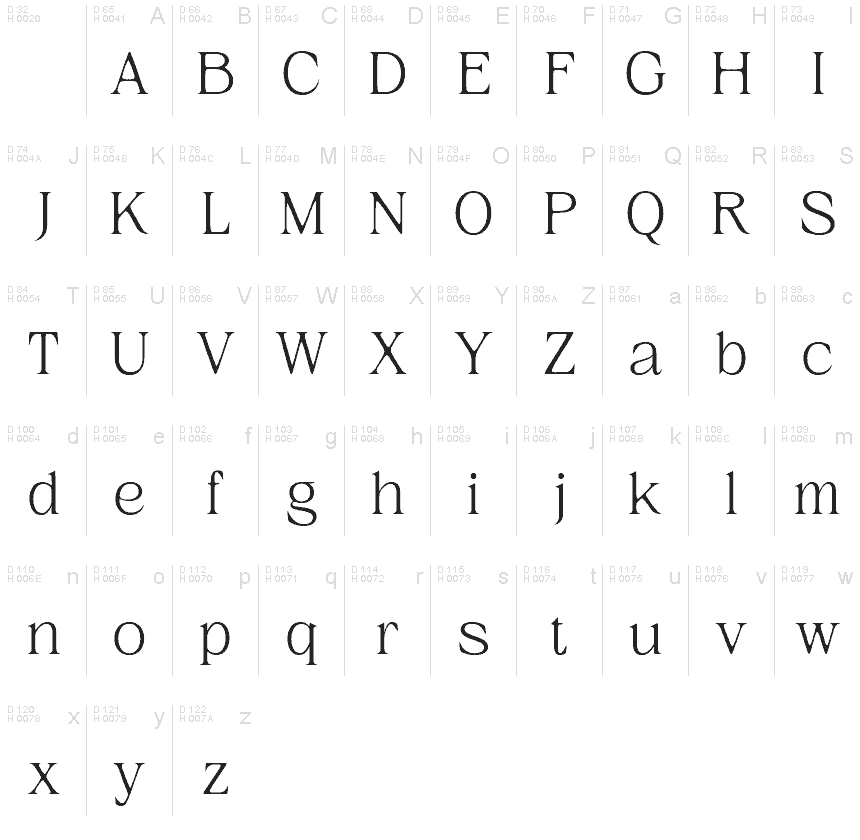
CS Castle Drawn font by Craft Supply Co. is a free serif font with a classic design and an elegant atmosphere. Refined elements create the sophisticated style of the letters that offer a vintage feel inspired by historical influences, one with balance and professional appearance.
Its recognizable designs can appear in logos and logotypes, invitations, magazine covers, ads, posters, packaging projects for parfüms and cosmetics products, branding designs for baking shops and cafés, sign design projects for concept stores…